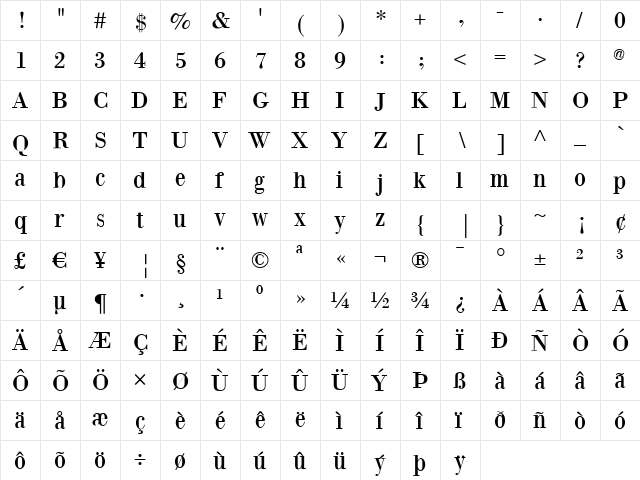
BodoniXT Regular Font Preview
BodoniXT Regular
Design Context for BodoniXT Typeface
BodoniXT takes a measured approach to typography — its balanced proportions and neutral character make it a reliable workhorse for both digital and print work.